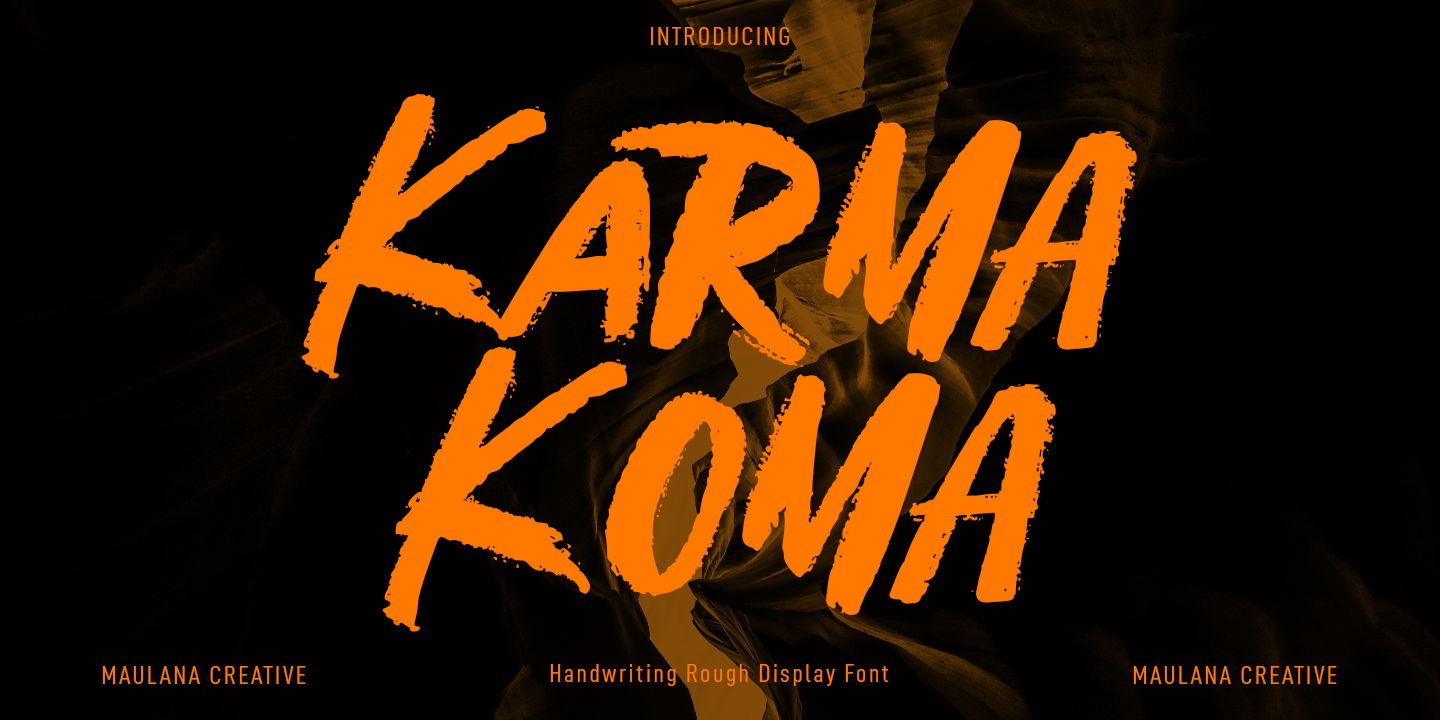
Karma Koma Font is perfect for spiritual wellness centers, meditation retreat branding, consciousness expansion workshops, mindfulness app interfaces, karmic healing practices, spiritual awakening seminars, Buddhist temple signage, yoga studio communications, chakra balancing centers, soul transformation coaching, enlightenment journey materials, and cosmic consciousness publications.
This font is exciting because it captures the profound spiritual awakening that occurs when karmic lessons reach their transformative climax, featuring ethereal letterforms that seem to float between earthly existence and divine consciousness, creating typography that embodies the blissful state of spiritual enlightenment and karmic resolution. The flowing character design evokes the transcendent moment when accumulated karma reaches its perfect balance, producing a state of peaceful consciousness that feels like floating in cosmic harmony. Each letter radiates the serene energy and spiritual wisdom that comes from understanding life's deeper mysteries and karmic patterns.
The Karma Koma Font family includes regular weight with complete character sets featuring spiritually-inspired numerals, enlightened punctuation marks, and decorative elements reminiscent of sacred symbols, chakra designs, and cosmic energy patterns. Advanced versions may offer additional stylistic variants with enhanced ethereal effects, alternate characters that create flowing spiritual connections, and mystical ornaments that amplify the karmic enlightenment aesthetic.
Whether you're developing spiritual practice branding, creating consciousness expansion content, or designing transformational healing materials, Karma Koma Font Free Download provides the divine tranquility and karmic wisdom your project needs to guide souls toward spiritual awakening and cosmic understanding. This typeface transforms ordinary text into sacred messages that resonate with the highest frequencies of spiritual consciousness and universal love. The font's enlightened character makes it ideal for brands and practitioners dedicated to spiritual growth and karmic healing. Spiritual teachers and consciousness coaches will love how this font brings authentic divine energy to their work with its genuinely transcendent and karmically balanced character that elevates human consciousness toward universal truth.